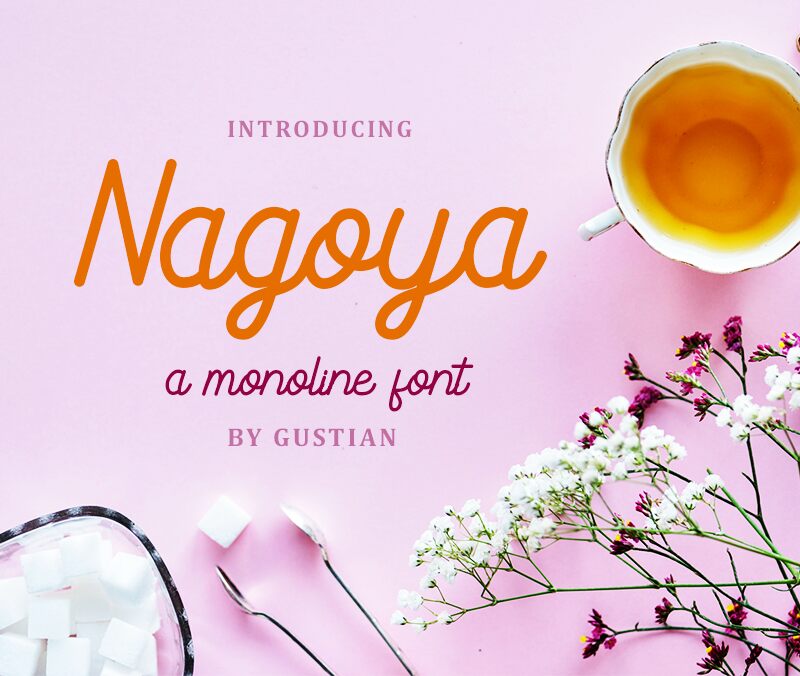
Nagoya is a captivating handwritten font designed by Gustian Agung Asprilla of Letterhend Studio. With its light, flowing strokes, this font effortlessly embodies a sense of effortless elegance and sophistication. The organic, script-like lines convey a natural, handcrafted quality, making it an ideal choice for a wide range of design applications, from editorial layouts and branding to invitations and product packaging.
Nagoya's versatility shines through its ability to lend a touch of warmth and personality to any project, elevating the overall aesthetic with its unique charm and character.
Nagoya
Gustian Agung Asprilla